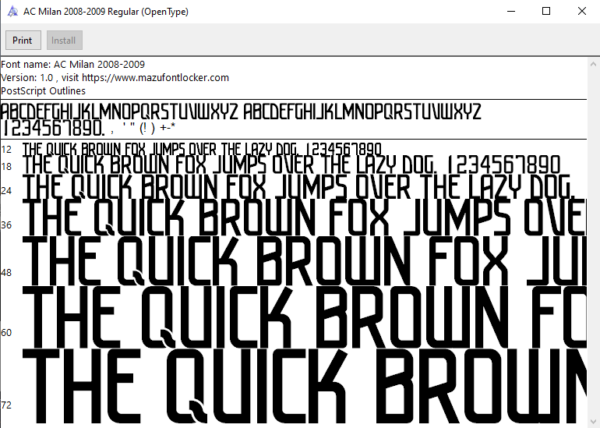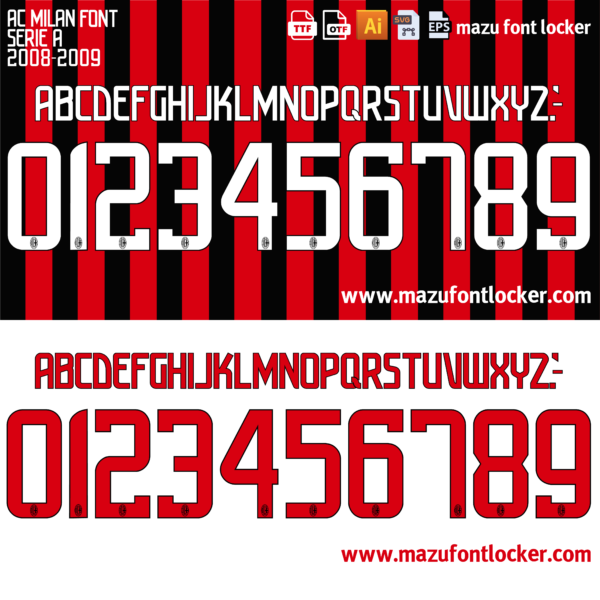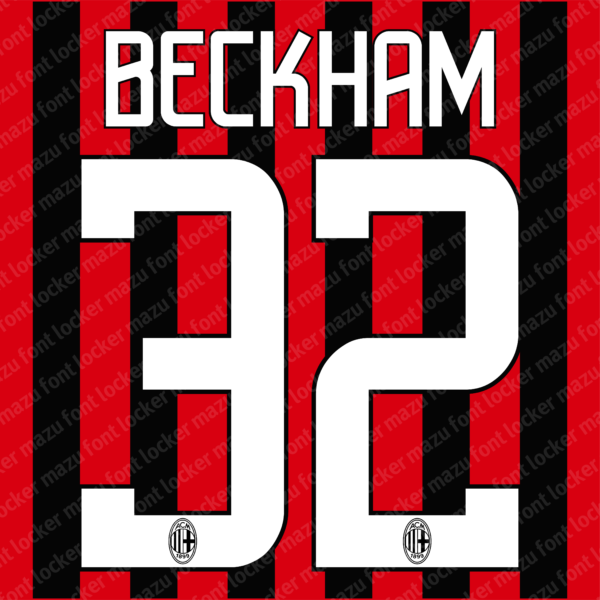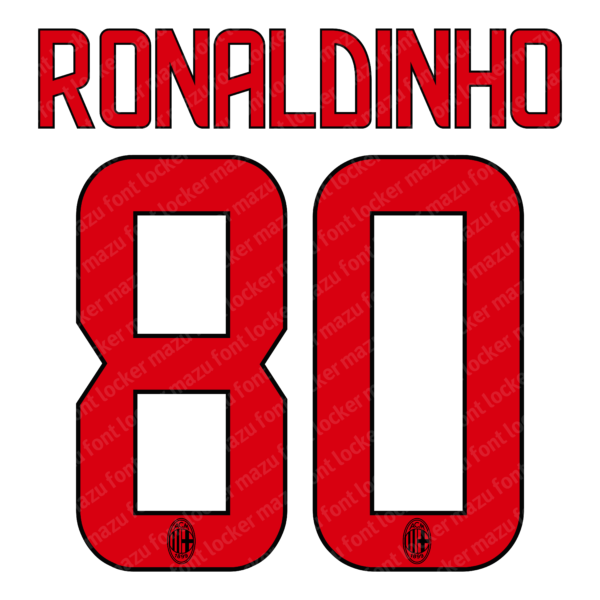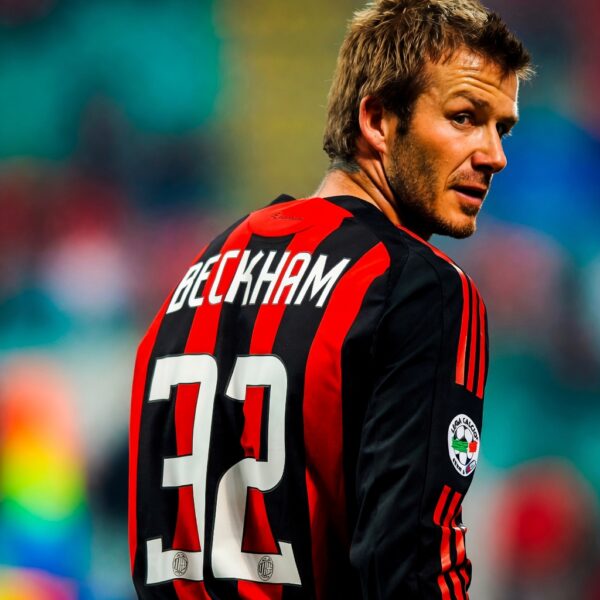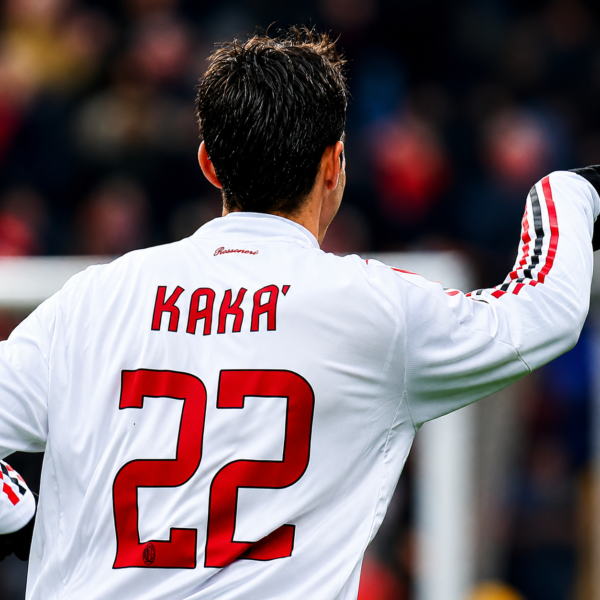
AC Milan 2008-2009 Font Vector – Glorious Rossoneri Powerfont
Download the highly anticipated AC Milan 2008-2009 Font, a premium football jersey font that brings back the golden era of the legendary Rossoneri. This AC Milan 2008-2009 Font is expertly crafted with bold, elegant, and powerful characteristics to perfectly represent the unforgettable 2008-2009 season.
Every letter and number is designed with razor-sharp precision, capturing the iconic red and black identity, supreme winning mentality, and majestic aura of that triumphant AC Milan 2008-2009 Font. Ideal for creating matchday posters, custom jerseys, fan merchandise, social media graphics, sublimation designs, and professional sports branding projects.
Whether for personal passion or commercial use, this font delivers exceptional quality and versatility that stands out instantly. Relive the glory days of Kaka, Ronaldinho, and the mighty AC Milan squad with a typeface that radiates pure champion energy and timeless Italian football excellence.
AC Milan 2008-2009 Font Vector
The AC Milan 2008-2009 Font is a premium, high-precision football jersey font vector meticulously engineered to capture the fearless dominance, explosive power, and electrifying identity of AC Milan’s legendary 2008-2009 era.
Inspired by the mighty Rossoneri and their iconic, high-intensity performances throughout the unforgettable 2008-2009 season, this font unleashes a bold, majestic, and devastatingly powerful presence that radiates unbreakable Rossoneri pride, rich heritage, and unstoppable champion spirit. Every letter and number has been painstakingly recreated with razor-sharp precision to embody the iconic red and black identity, supreme winning mentality, and glorious legacy of the greatest Rossoneri team.
• Authentic 2008-2009 AC Milan jersey lettering style
The authentic lettering style helps recreate the classic look of the AC Milan 2008-2009 kit with professional accuracy.
Unlike generic jersey fonts, this set is designed with a strong focus on authenticity and accuracy. Every detail is based on the original match lettering style used during the AC Milan 2008-2009, helping designers and collectors create realistic football shirt designs.
This AC Milan 2008-2009 font vector set is designed for authentic football jersey customization and works perfectly for retro football projects, collector designs, and professional sportswear artwork.